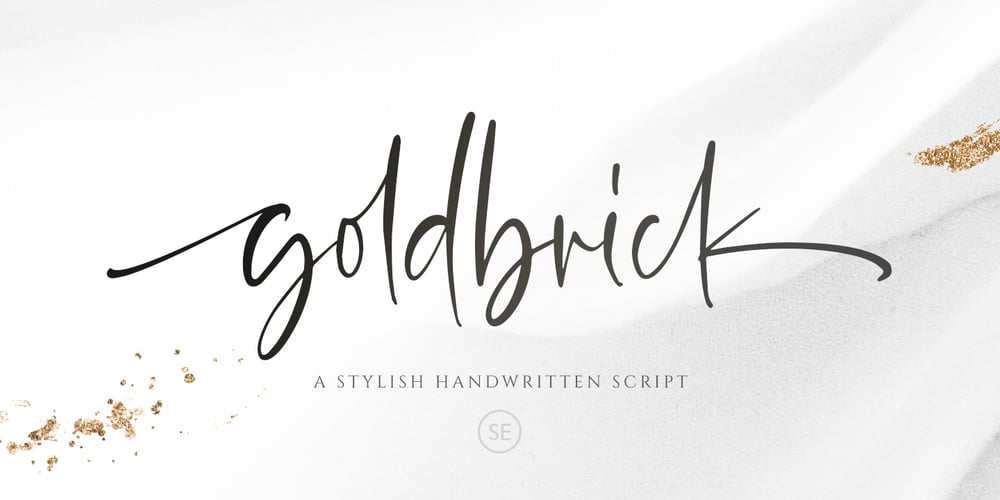
Goldbrick Font Family was designed by Sarid Ezra and published by Sarid Ezra. Goldbrick contains 1 styles and family package options. Goldbrick Script is a natural handwritten script that contains lowercase, uppercase, symbol, and also multi-lingual support. Comes with ligature, contextual alternates, stylistic alternates, also initial and terminal swash. Goldbrick Script is suitable for logo branding, beautiful fashion design, suitable for wedding invitation, or handwritten quote. It is already PUA Encoded.